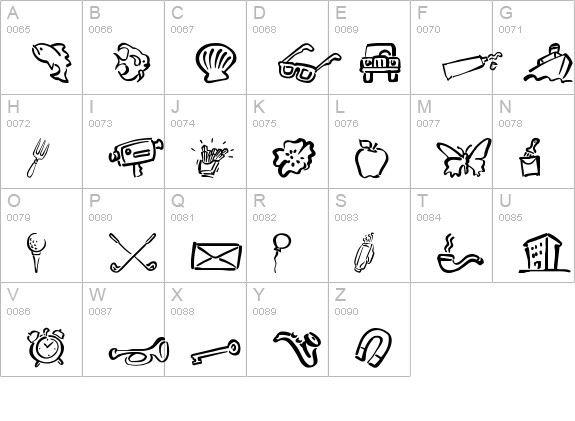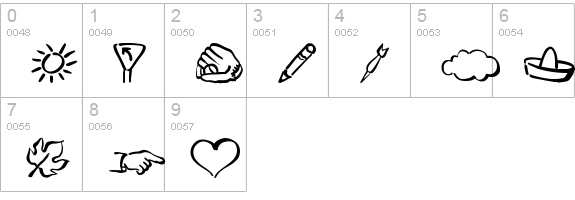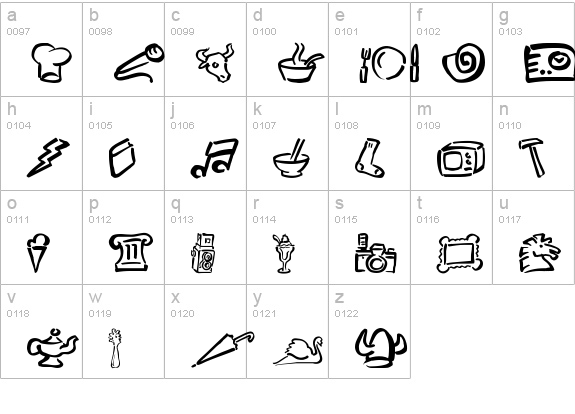
DF Diversities LET Plain:1.0 Font Details
DF Diversities LET Plain:1.0 font is a versatile and modern typeface that is sure to make your projects stand out. With its clean lines and elegant design, this font is perfect for a wide range of applications, from branding to editorial design. What sets DF Diversities LET Plain:1.0 font apart is its unique combination of classic elegance and contemporary flair. Whether you're designing a logo, creating a poster, or crafting a website, this font is sure to give your work a professional and polished look. Best of all, DF Diversities LET Plain:1.0 font is available for free download at FontsMarket.com. So you can start using this beautiful font in your projects right away, without having to worry about any additional costs. Don't miss out on this amazing opportunity to enhance your designs with the stunning DF Diversities LET Plain:1.0 font. Download it today and let your creativity soar!